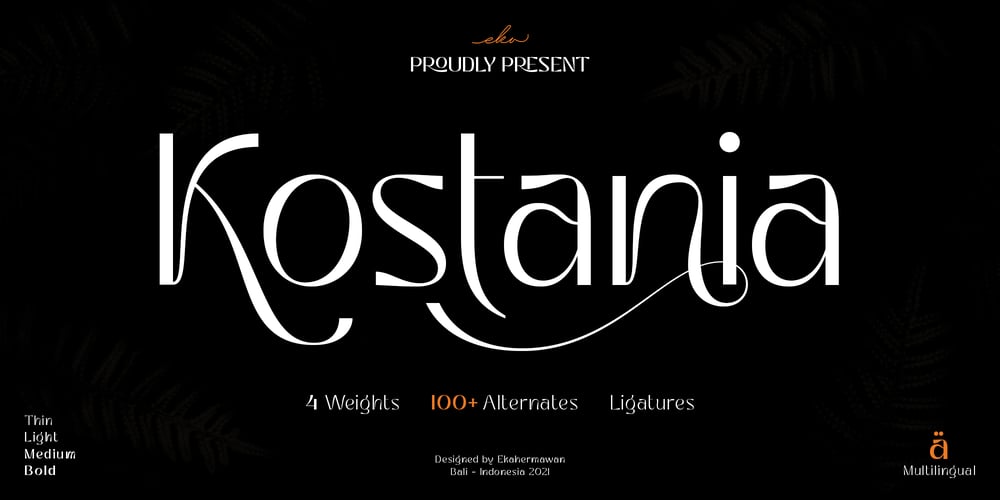
Kostania Font Family was designed by Putu Eka Hermawan and published by Ekahermawan. Kostania contains 4 styles and family package options. Kostania is an elegant and unique designed font for any display use with 4 weights from Thin to Bold.Kostania is including a bunch of alternates and ligatures characters that give you a variety of typographic design results.Kostania is a versatile font for many design project such as logo design, branding, poster, magazines, labels, merchandise, invitation, presentation, advertising and so much more!FEATURES:OpenType supportPlayfull to use (with ligatures and alternates options)Multilingual supportPUA EncodedIf you need support or more information about this itemplease kindly contact me :ekahermawanputu@gmail.comThank you so muchI really hope you enjoy when using it!